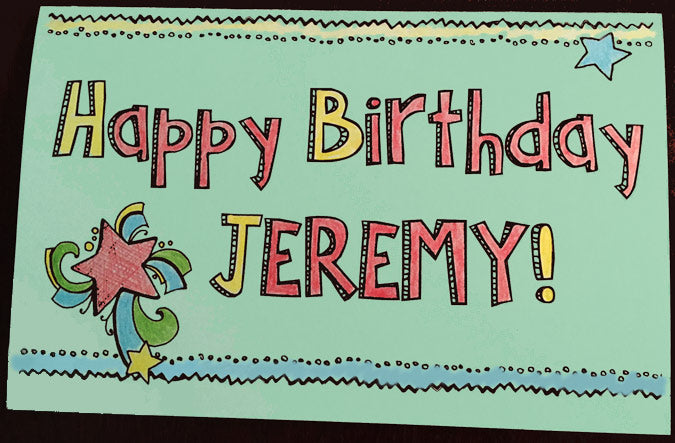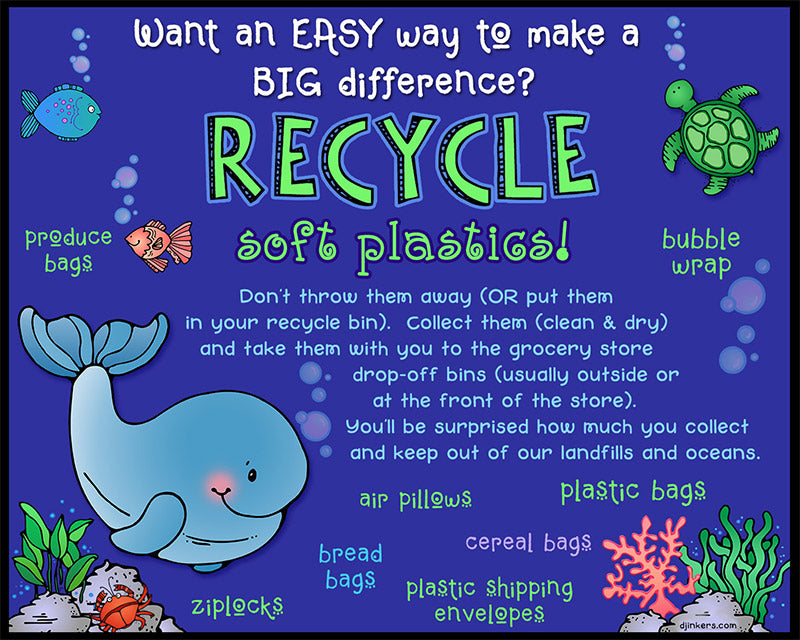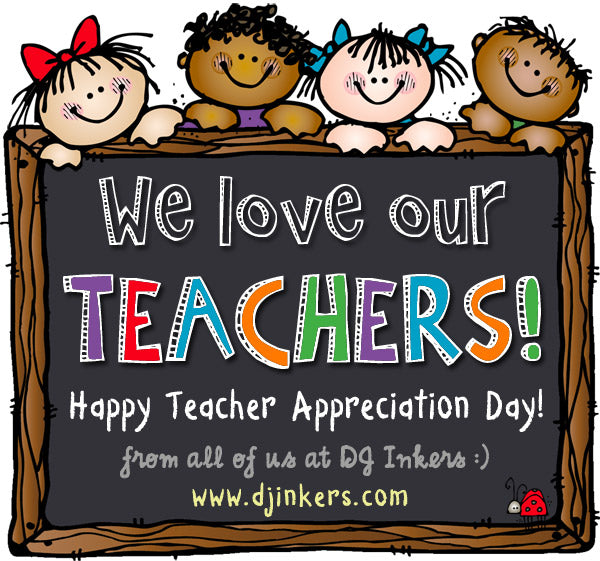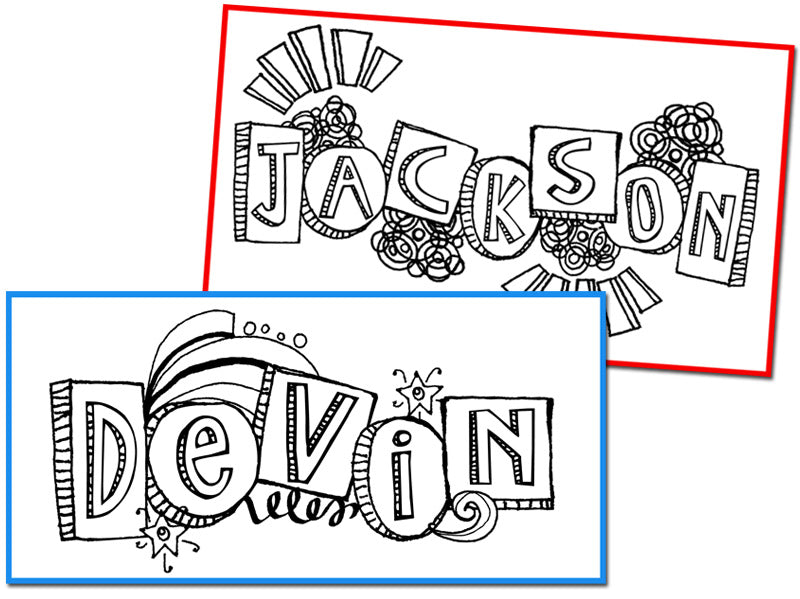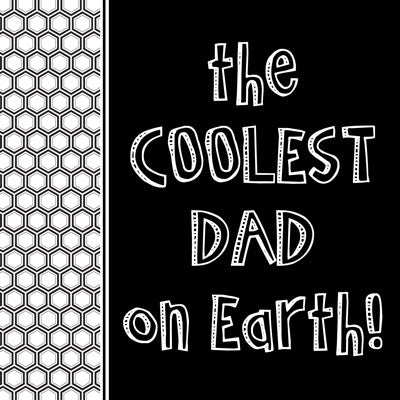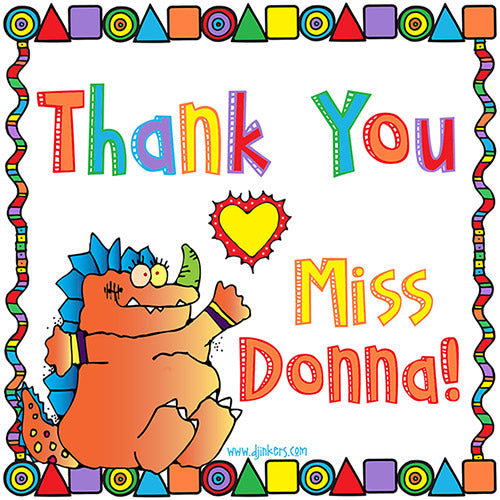
DJ Notebook is a cool 2D drop shadow font, with hand drawn lettering by DJ Inkers
Add a cool, intricately doodled look to your projects with our fun  DJ Notebook font!  This bold 2 dimensional lettering is great for creating smiles and headlines for parties, school stuff, kids, office and more. Type up a smile today!
This font has a lot of spunk and personality! it is fun to type with, but it definitely wants to be big or it gets too busy.